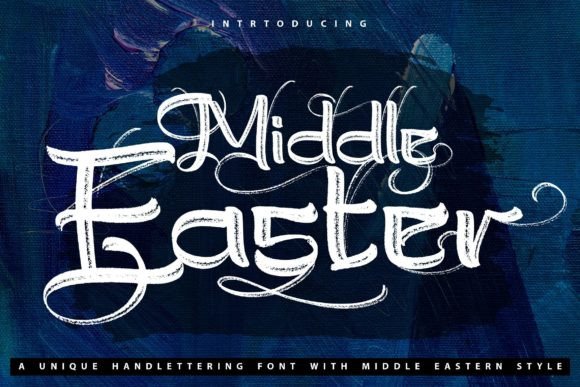
Step into the mesmerizing world of the Middle Easter Font, a captivating creation that will ignite your artistic vision and leave an unforgettable mark on your designs. This exquisite script font, meticulously crafted by the renowned Vunira, embodies the beauty of traditional calligraphy, infusing your words with an air of timeless elegance and sophistication.
Unleash the power of Middle Easter Font to elevate your logo designs to new heights, leaving a lasting impression that speaks volumes about your brand's identity. Its meticulously crafted strokes, reminiscent of fine brushwork, add an enchanting touch of artistry, drawing the eye and captivating the imagination. With every letter gracefully intertwined, Middle Easter Font transforms your logos into captivating works of art that convey a sense of warmth, authenticity, and enduring style.
Beyond logos, Middle Easter Font shines as a versatile tool for creating enchanting greeting cards that express your heartfelt sentiments with unparalleled beauty. Imagine your loved ones receiving these thoughtfully crafted cards, their hearts filled with joy and appreciation as they marvel at the exquisite calligraphy that adorns your words. Each card becomes a cherished keepsake, a testament to the love and care you have poured into its creation.
But the allure of Middle Easter Font extends far beyond cards and logos. Let your creativity soar as you utilize this remarkable font for branding materials that exude professionalism and flair. Business cards, brochures, and website designs all come alive with a touch of Middle Easter Font, conveying a sense of trustworthiness, creativity, and attention to detail. Your brand will stand out from the crowd, leaving a lasting impression that resonates with your target audience.
For those seeking to create captivating posters that demand attention, Middle Easter Font is your secret weapon. Its bold strokes and sweeping curves command attention, transforming your messages into visually stunning masterpieces. Whether you're promoting an upcoming event, showcasing your latest products, or simply sharing an inspirational quote, Middle Easter Font amplifies your message, ensuring it leaves a lasting impact on all who behold it.